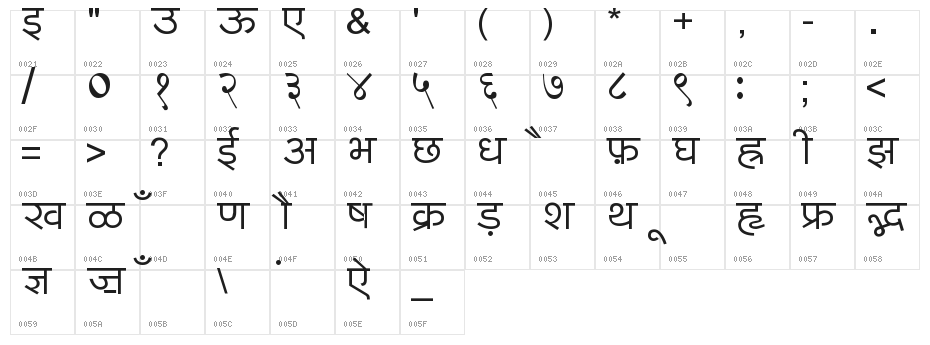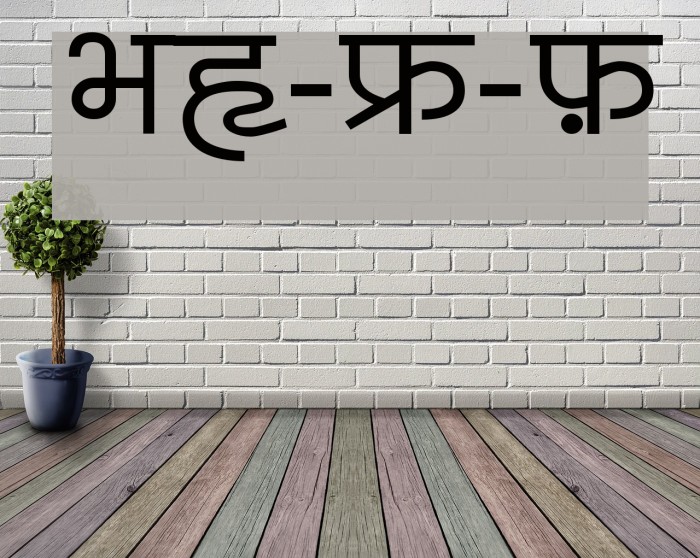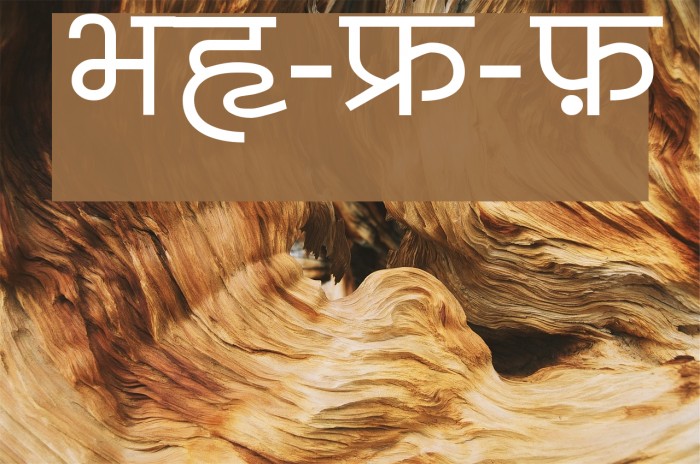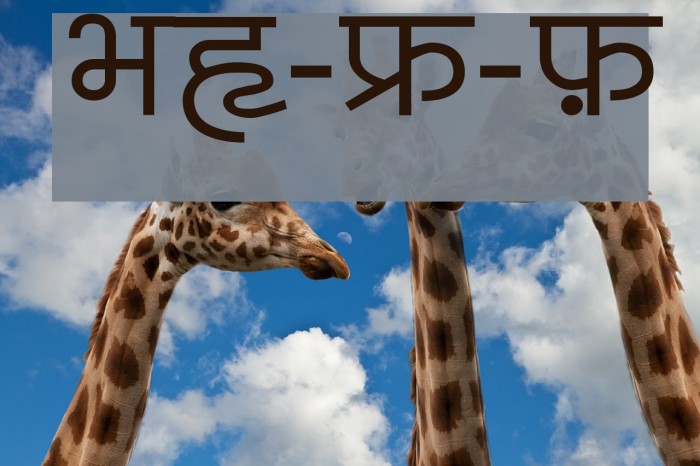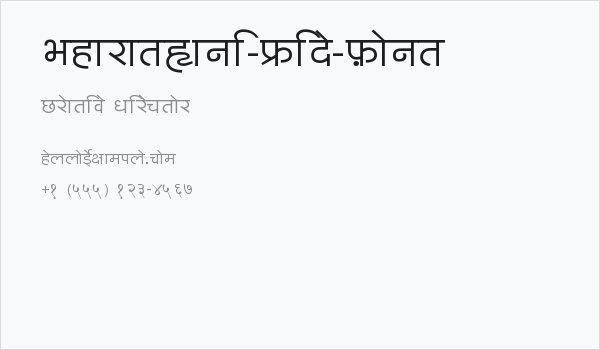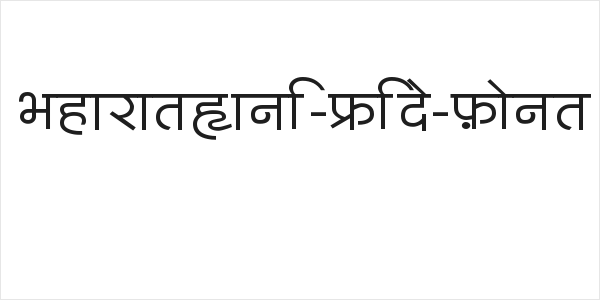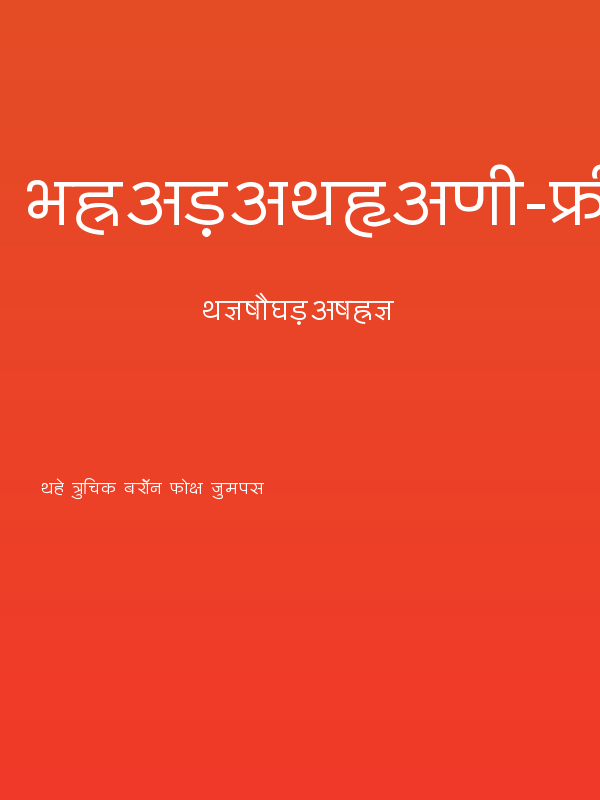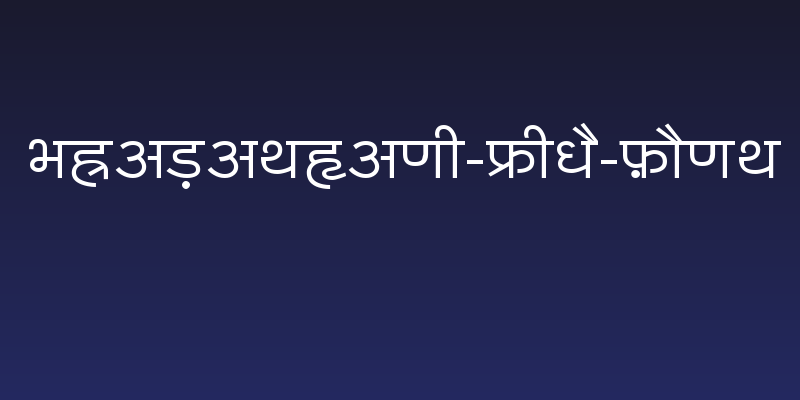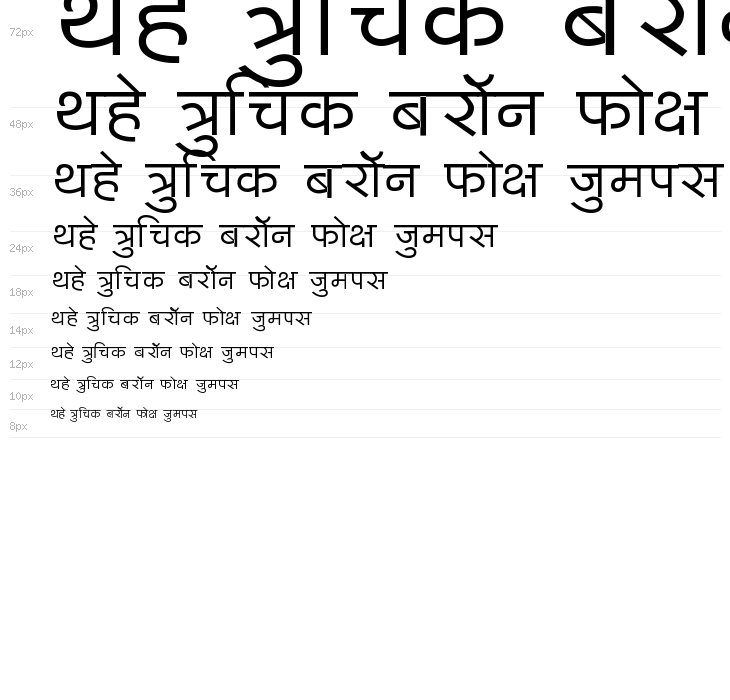
BharatVani-Wide-Font Font
BharatVani-Wide-Font Description
This font features a modern and clean design with a wide structure, offering a balanced and harmonious appearance. The characters are well-defined with consistent stroke widths, providing a sense of stability and clarity. The font includes a full set of Devanagari characters, numerals, and a selection of punctuation marks, making it versatile for various uses. The design is straightforward yet elegant, suitable for both digital and print media. Its wide spacing and clear lines make it highly readable, even at smaller sizes.
| Use Case | Headlines, Body text, Educational materials |
| Proposed Projects | Ideal for use in educational materials, signage, digital interfaces, and print publications that require clear and accessible Devanagari script. |